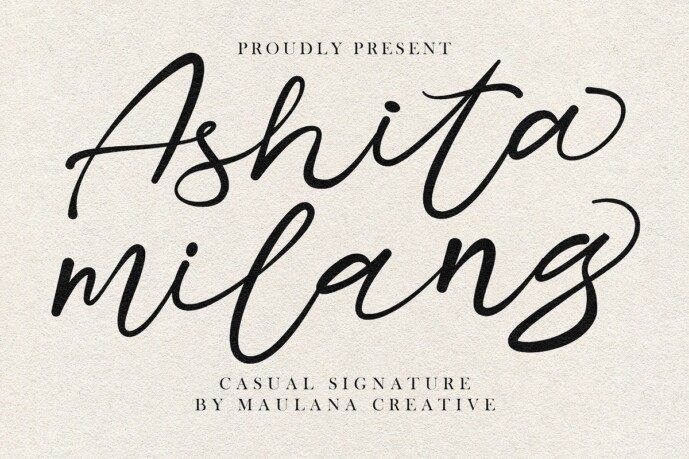
Ashitamilang Casual Signature Font
Designer: Maulana Creative
Ashitamilang Casual Signature Font, fun character with a bit of ligatures and alternates. To give you an extra creative work. Ashitamilang Casual Signature Font support multilingual more than 100+ language.